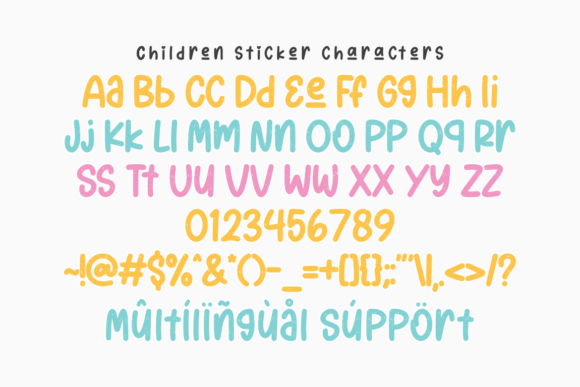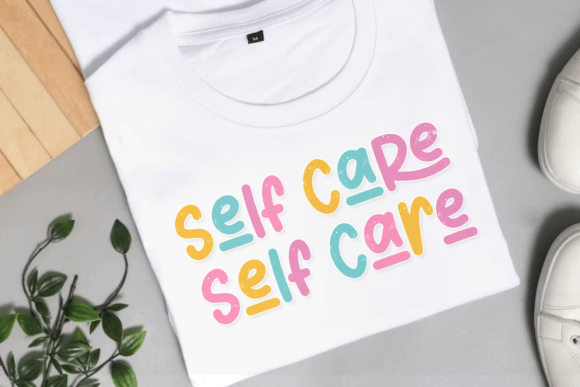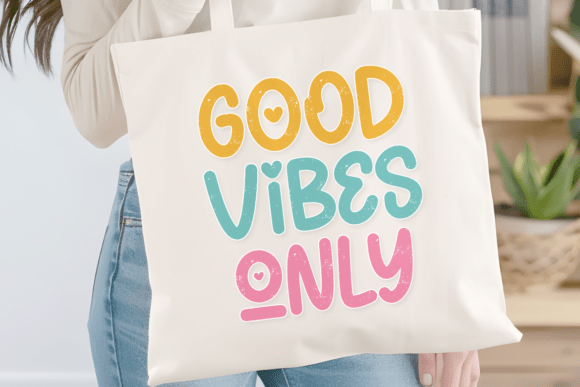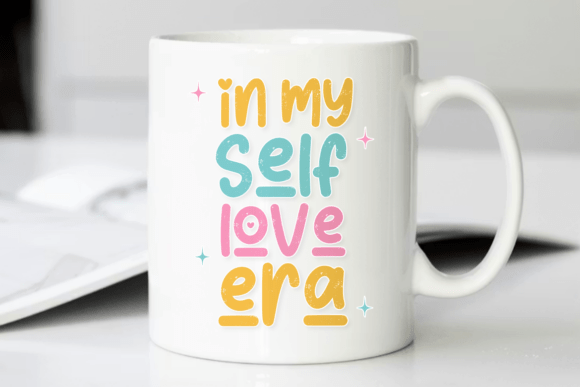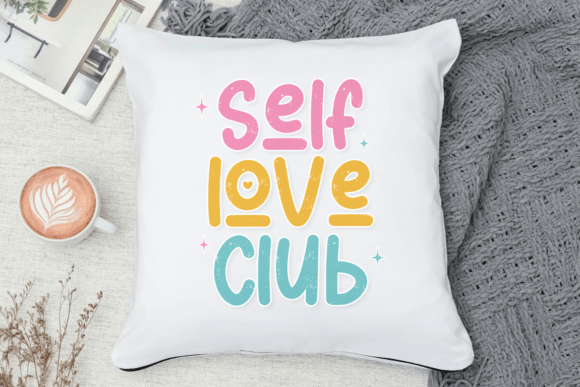
Introducing Children Sticker Texture Font: A Whimsical Delight for Designers and Crafters
Are you looking for a font that captures the essence of childhood wonder and playfulness? Look no further than the Children Sticker Texture Font, an adorable display font inspired by the whimsical world of childhood stationery and colorful decals. This charming typeface is perfect for designers and crafters seeking to add a touch of joy and creativity to their projects.
A Font that Embodies the Spirit of Childhood
Children Sticker Texture Font features soft, rounded strokes and playful proportions that evoke a sense of happiness and imagination. Its clean, bold lines make it a standout choice for high-impact designs, while its smooth and easy-to-read texture ensures a seamless experience for vinyl and digital cutting projects. Whether you’re creating personalized kids’ stickers, school labels, or custom lunchbox decals, this font is sure to delight.
The versatility of Children Sticker Texture Font knows no bounds. Here are some ideas to get you started:
- Creating personalized kids’ stickers and labels for school supplies, folders, and books
- Designing custom lunchbox decals and nursery wall art for a playful touch
- Crafting birthday invitations and party decorations that exude joy and excitement
- Developing t-shirt designs for kids that are both fun and stylish
- Enhancing classroom decor and teacher appreciation gifts with a personal touch
- Creating digital scrapbooking pages that showcase cherished memories
- Adding a playful twist to social media branding and marketing materials
Perfect for Holiday Themes and Special Occasions
Children Sticker Texture Font is especially well-suited for holiday themes and special occasions, such as:
- Back to School season: Create eye-catching stickers, labels, and decorations for school supplies and classroom decor
- Children’s Day: Design delightful stickers, posters, and party decorations that celebrate the joy of childhood
- Birthdays: Craft personalized party invitations, decorations, and gifts that make every celebration special
- Spring celebrations: Add a touch of whimsy to Easter and Mother’s Day projects with colorful stickers, cards, and decorations
Why Choose Children Sticker Texture Font?
This charming font offers a unique combination of characteristics that make it an excellent choice for designers and crafters:
- Unique texture inspired by childhood stationery and colorful decals
- Soft, rounded strokes and playful proportions for a joyful feel
- Clean, bold lines for high-impact designs and easy reading
- Optimized for vinyl and digital cutting projects, ensuring a smooth and easy weeding experience
- Perfect for a wide range of projects, from kids’ stickers and labels to social media branding and digital scrapbooking
Get Ready to Add a Touch of Whimsy to Your Designs!
With Children Sticker Texture Font, you can infuse your designs with the magic of childhood and bring a smile to people’s faces. Whether you’re a designer, crafter, or DIY enthusiast, this delightful font is sure to inspire your creativity and take your projects to the next level. So why wait? Download Children Sticker Texture Font today and start creating your own whimsical masterpieces!